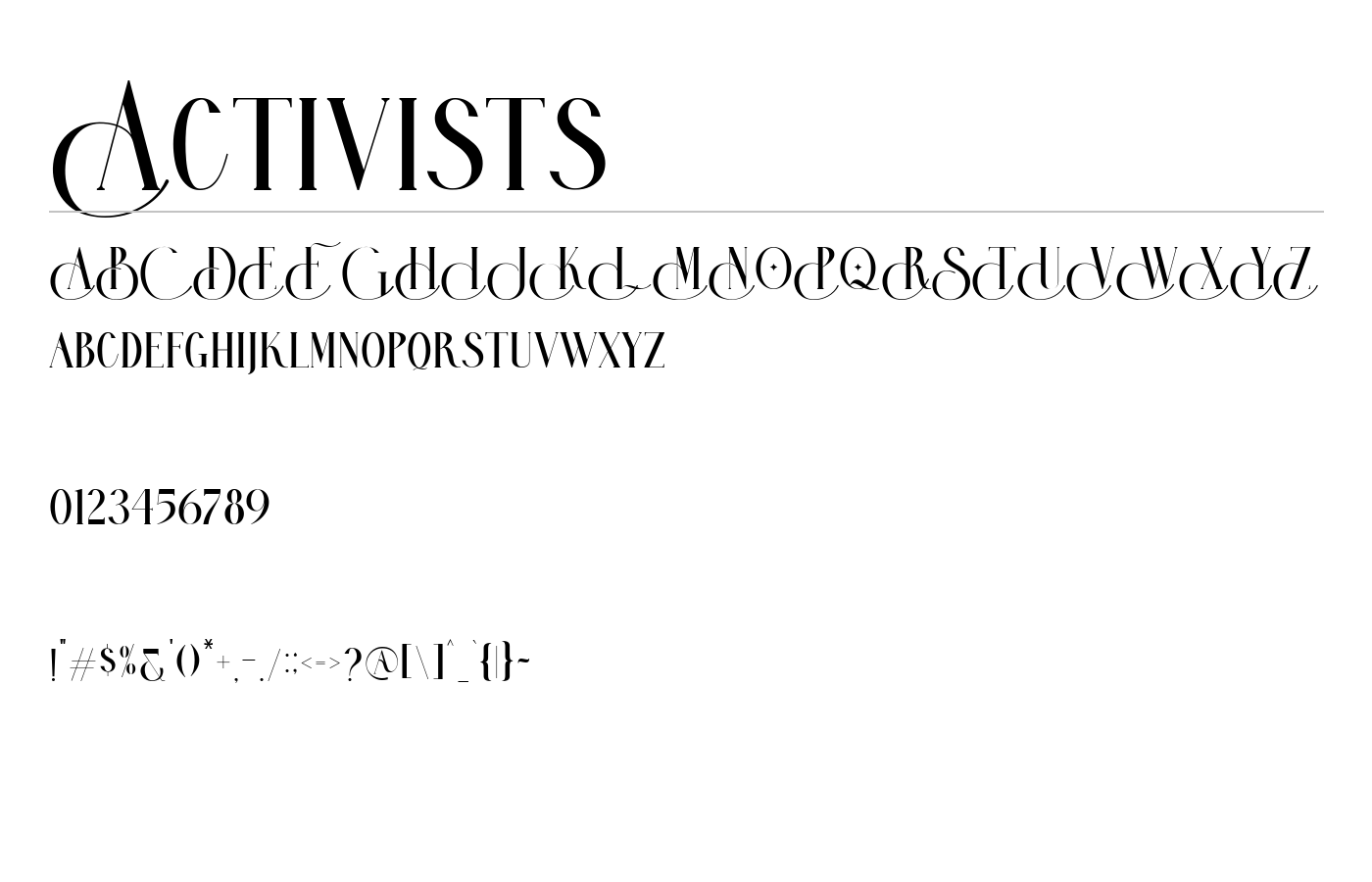
Activists Font is a delicate and elegant serif typeface featuring very high contrast between thick and thin strokes, with slender, elongated letterforms that combine a classic modern Didone style with unique decorative swashes and curls. Its refined and artistic character lends a sophisticated, avant-garde flair, making it ideal for luxury branding, editorial headlines, and fashion-focused designs where a striking and graceful statement is desired. This font works best at large sizes where its intricate details can be fully appreciated, adding an air of exclusivity and artistry.
Activists Font
About Activists Font
| Font family | Activists Font |
| Designer | 177Studio.com |